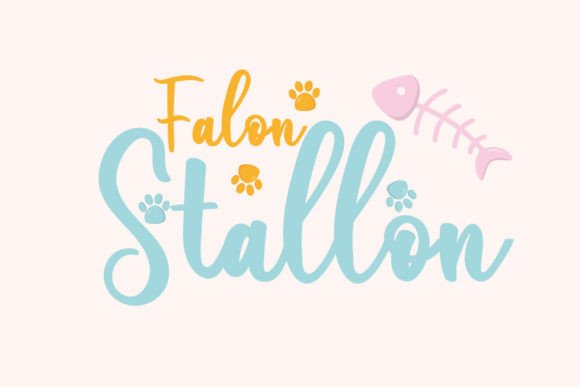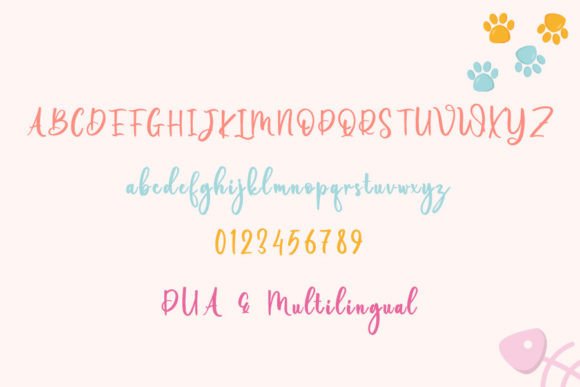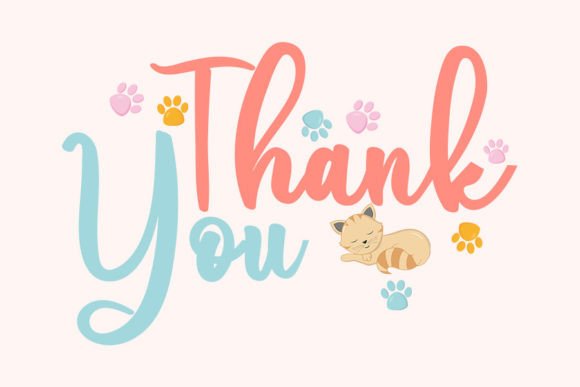
Restway Font
Introducing Restway, a cool and fun handwritten font designed to bring a dramatic emphasis to titles or words in your creative projects. Whether you’re working on posters, banners, social media graphics, or any other design that requires a touch of flair, Restway is crafted to be a wonderful asset to your font library.
The charm of Restway lies in its cool and fun handwritten style, making it suitable for a variety of applications that require a more dramatic and impactful look. Whether used in digital designs or print materials, this font is designed to enhance the overall visual appeal.
In titles and headers, Restway offers a cool and dynamic option. Its handwritten flair adds a touch of playfulness and emphasis, making your text stand out with a sense of energy.
For posters and banners, Restway brings a fun and eye-catching element. The font’s cool style enhances the overall visual impact of your designs, making them more engaging and memorable.
In social media graphics, Restway’s dynamic and fun feel contributes to a lively and attention-grabbing design. The font is crafted to make your creative projects pop with a touch of dramatic emphasis.
Restway is versatile and adaptable, making it suitable for various design needs where a cool and fun handwritten style is desired. Whether you’re working on digital designs or print materials, this font is designed to bring a dynamic and impactful touch to your creative projects.
In conclusion, Restway is a cool and fun handwritten font perfect for titles, headers, posters, and more. Choose Restway to enhance your creations with a touch of flair and dramatic emphasis, creating visually appealing and engaging outcomes across a variety of creative applications.